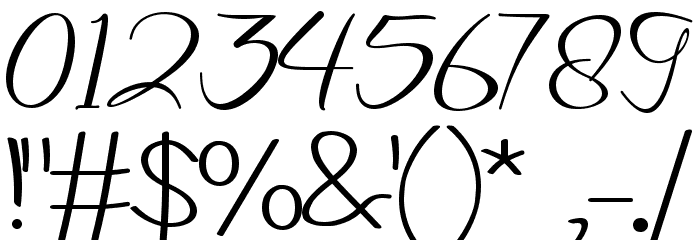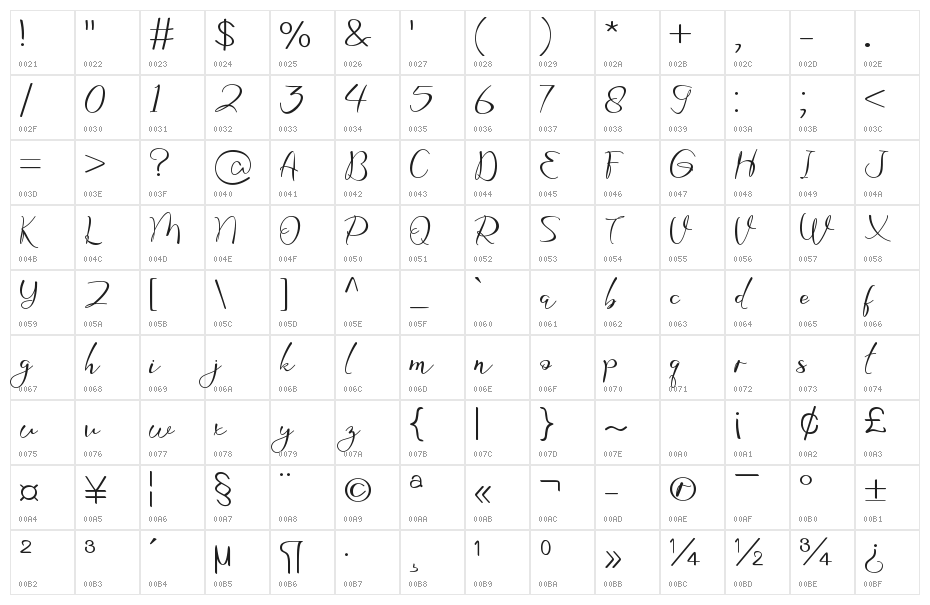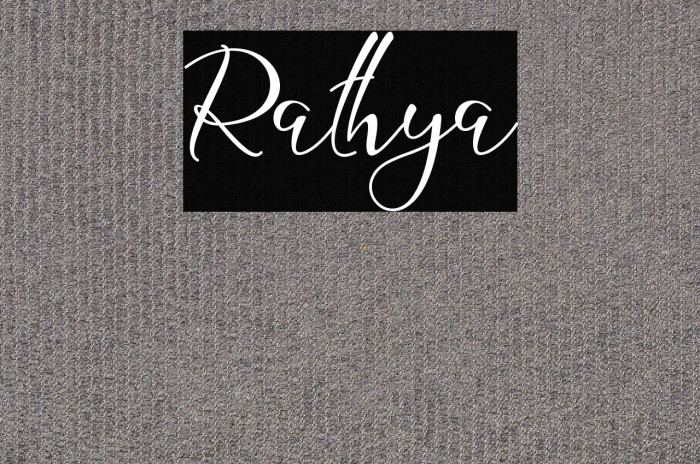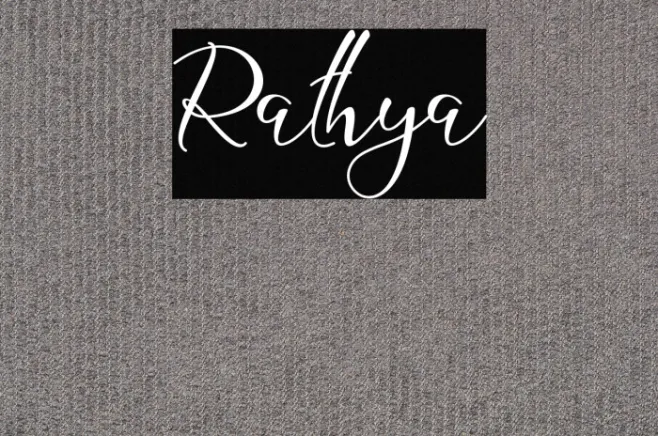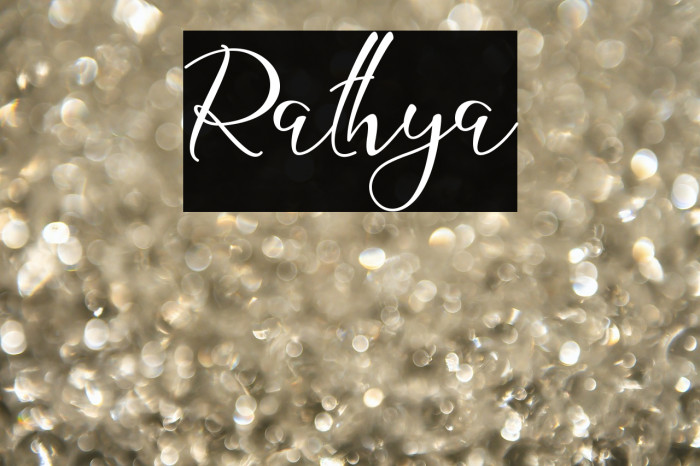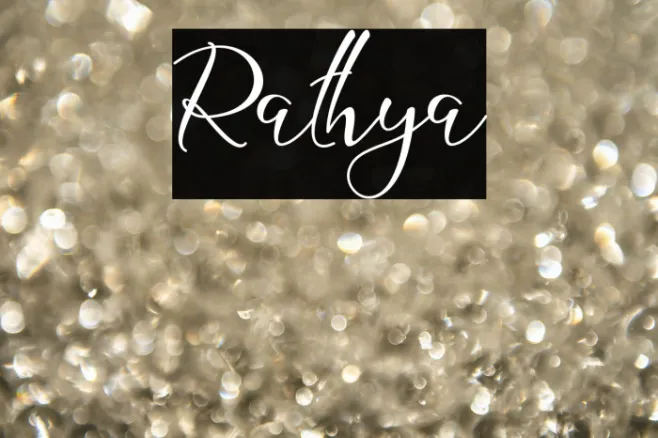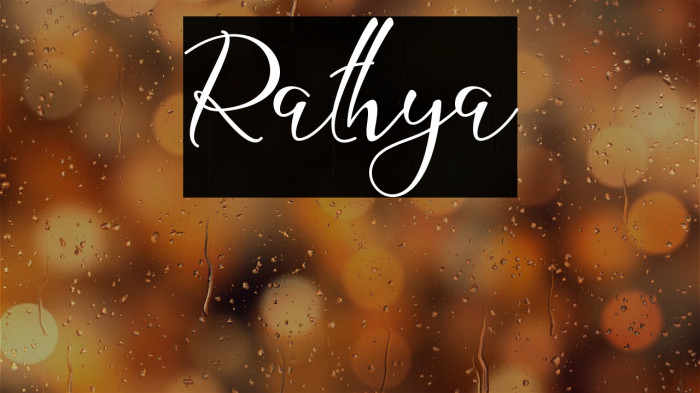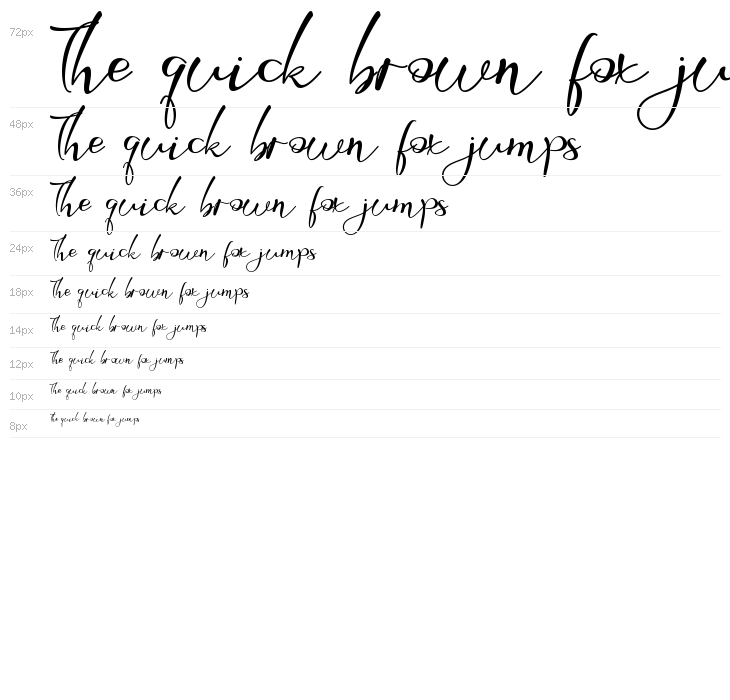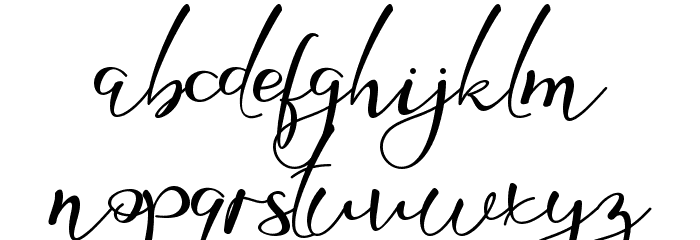
Rathya Font
Rathya Description
This elegant script font features fluid, cursive strokes that convey a sense of sophistication and grace. The uppercase letters are characterized by sweeping lines and loops, creating a dynamic and flowing appearance. The lowercase letters maintain a consistent style, with delicate connections between characters that enhance readability while preserving the font's decorative nature. The numerals are designed with a similar flair, integrating seamlessly with the alphabetic characters. Special characters are thoughtfully crafted to match the overall aesthetic, making this font suitable for a variety of creative applications.